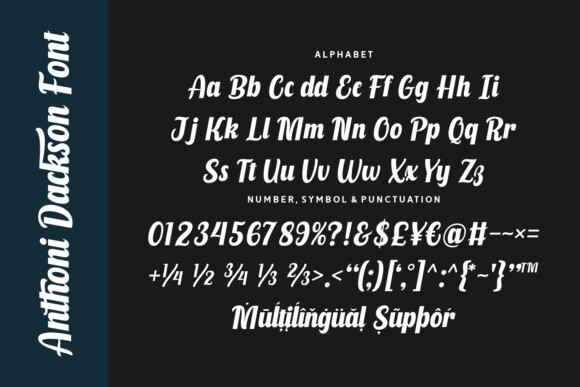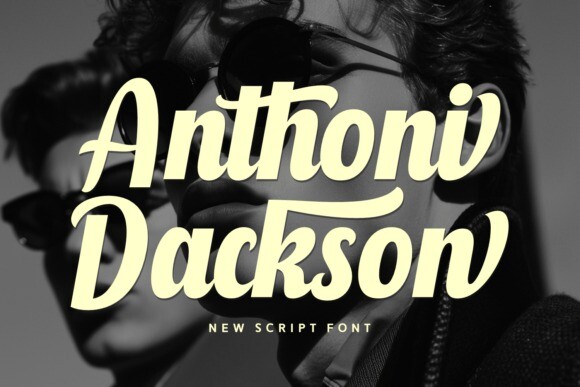
Anthoni Dackson Font
Anthoni Dackson Font is a bold and beautiful script font that features elegant, flowing letters. Its stylish curves and strong lines make it perfect for adding a touch of sophistication to invitations, logos, and other creative projects. This font stands out with its eye-catching design, making any text look unique and charming.